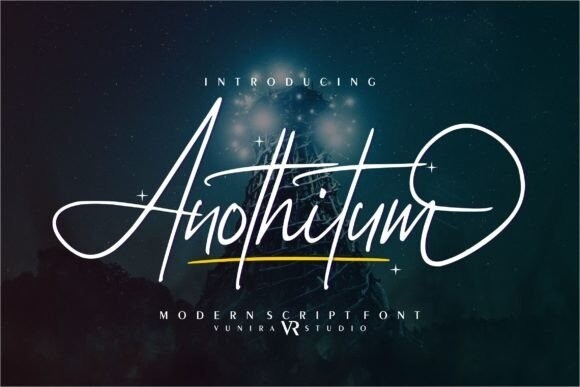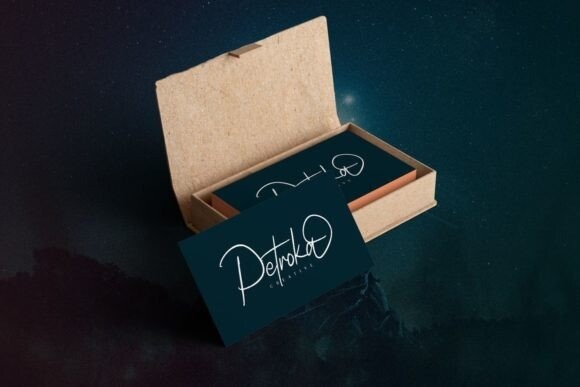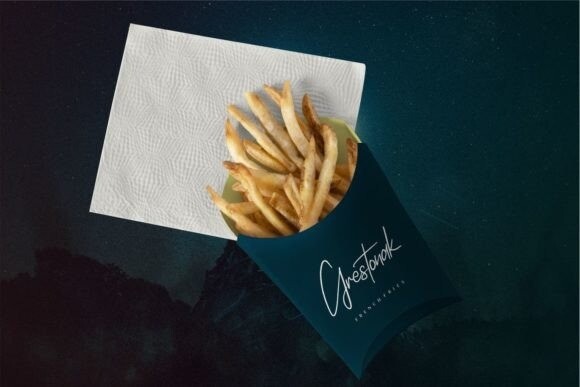
Anothitum Font
Anothitum is a modern script font with a calligraphy style. It will look so beautiful on invitations, greeting cards, branding materials, business cards, quotes, posters, and more!